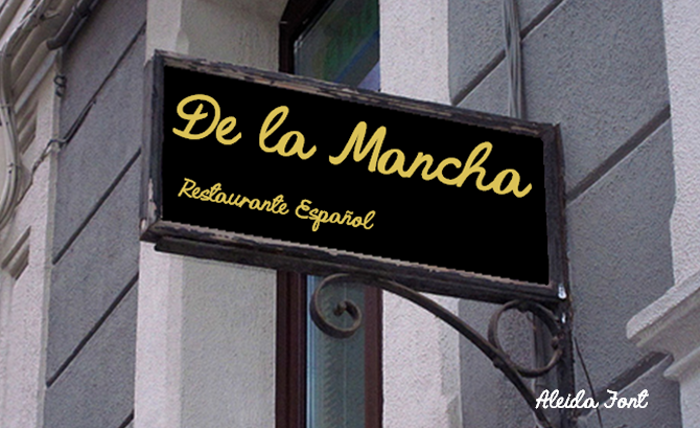
Aleida Font
The complete version include 4 types of Swashes with 7 sizes for each...Also include bonus DINGBAT: 4 Elements.
Is suitable for many types of projects such as logos, posters, apparel printing, labels, quotes,headlines and more.